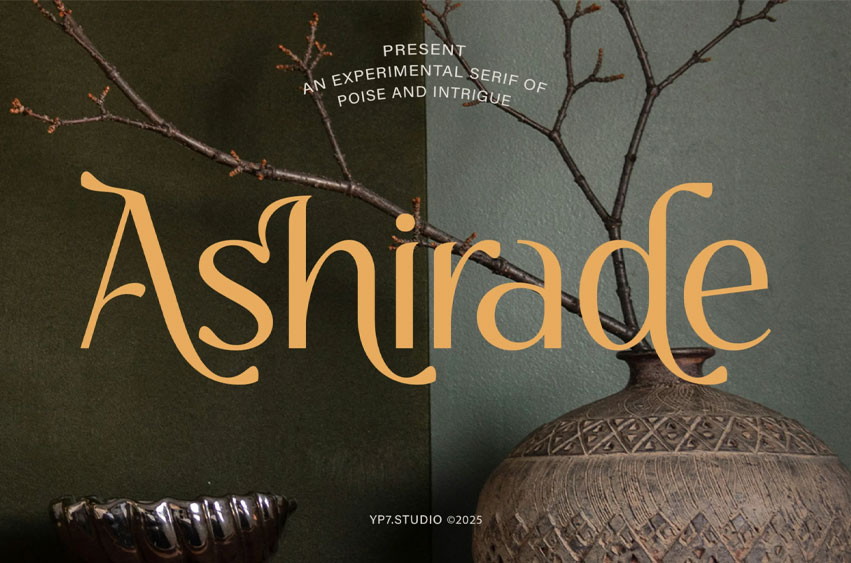
Ashirade Font
Ashirade Font Elegant Sherif Font. This font is well-suited for a variety of contexts, such as print design, promotional materials, or magazine layouts.
Ashirade